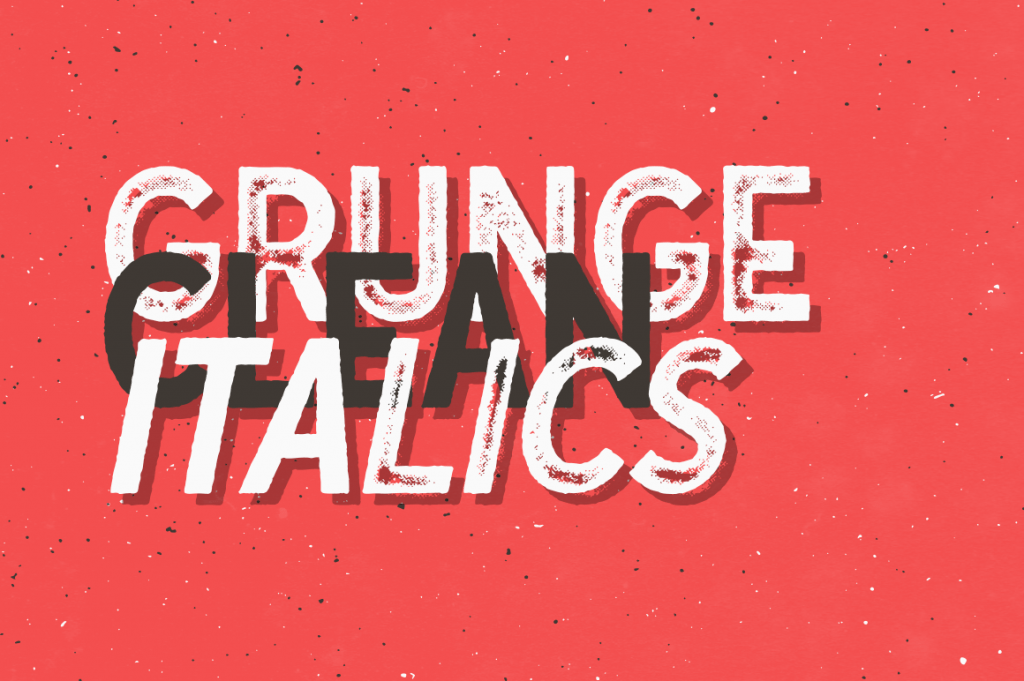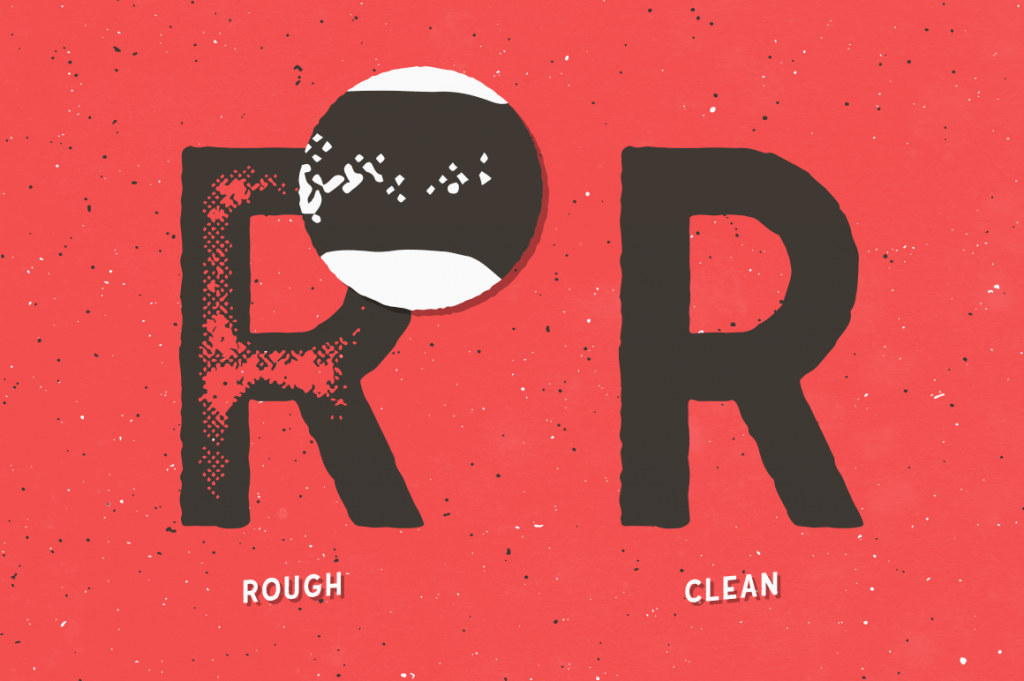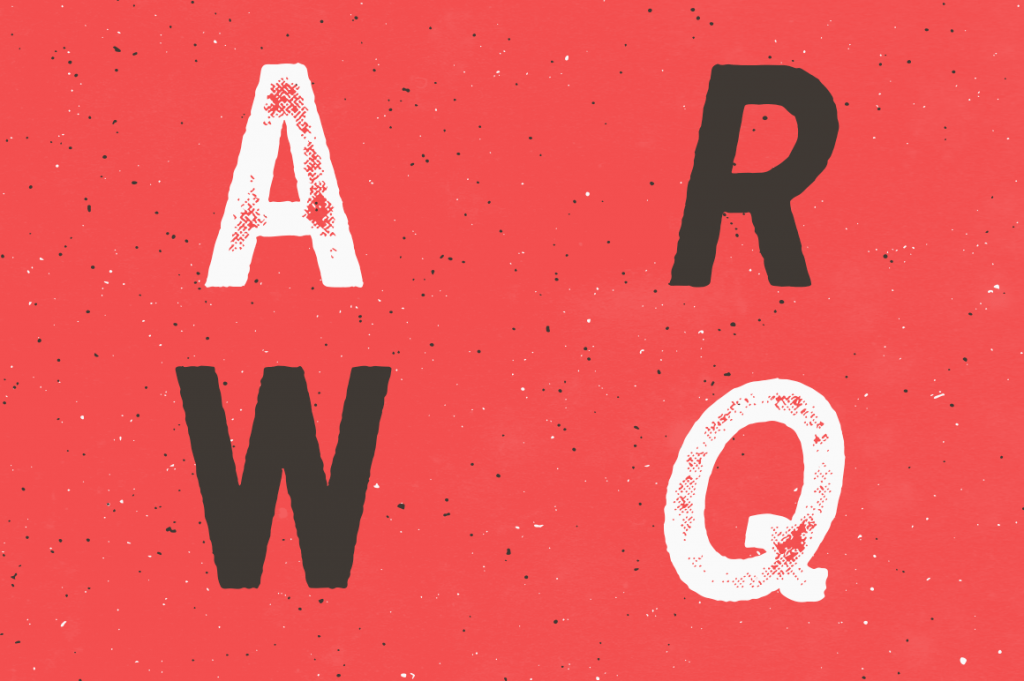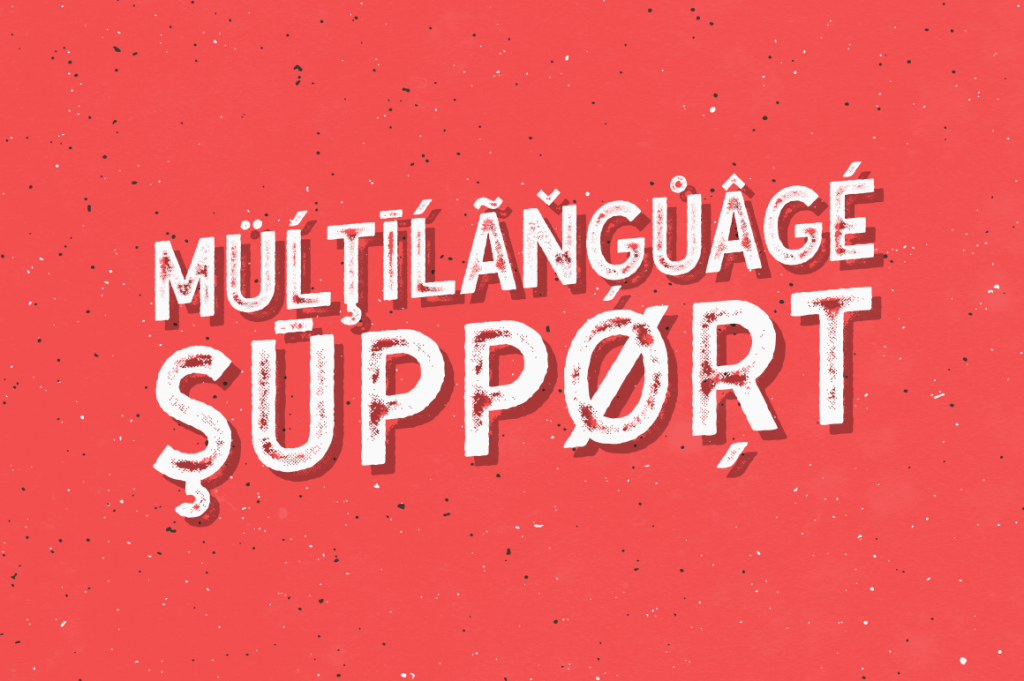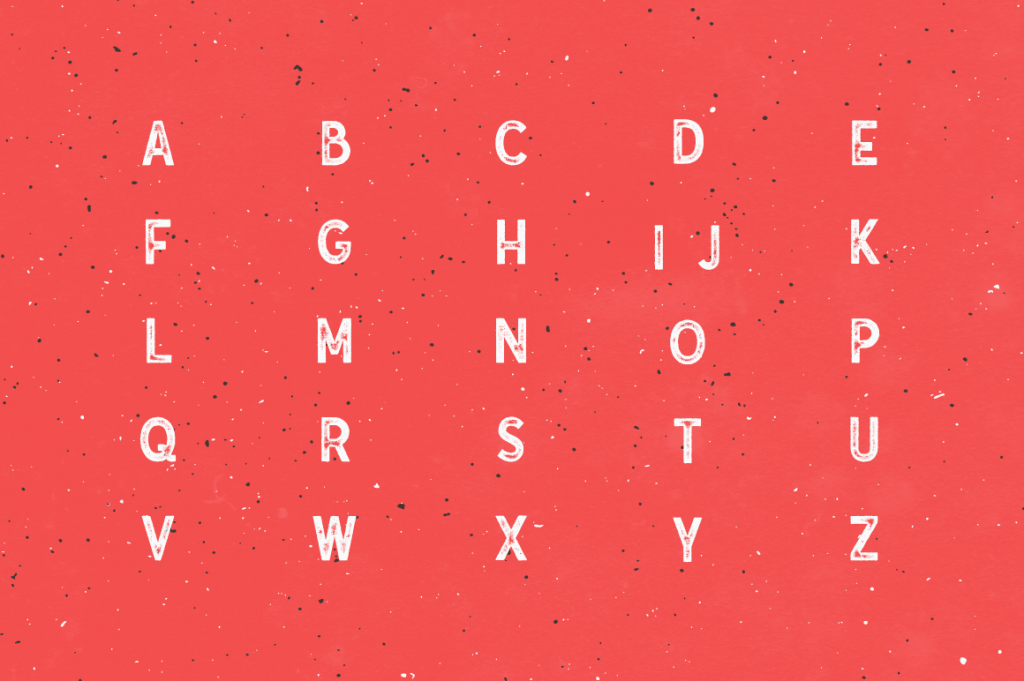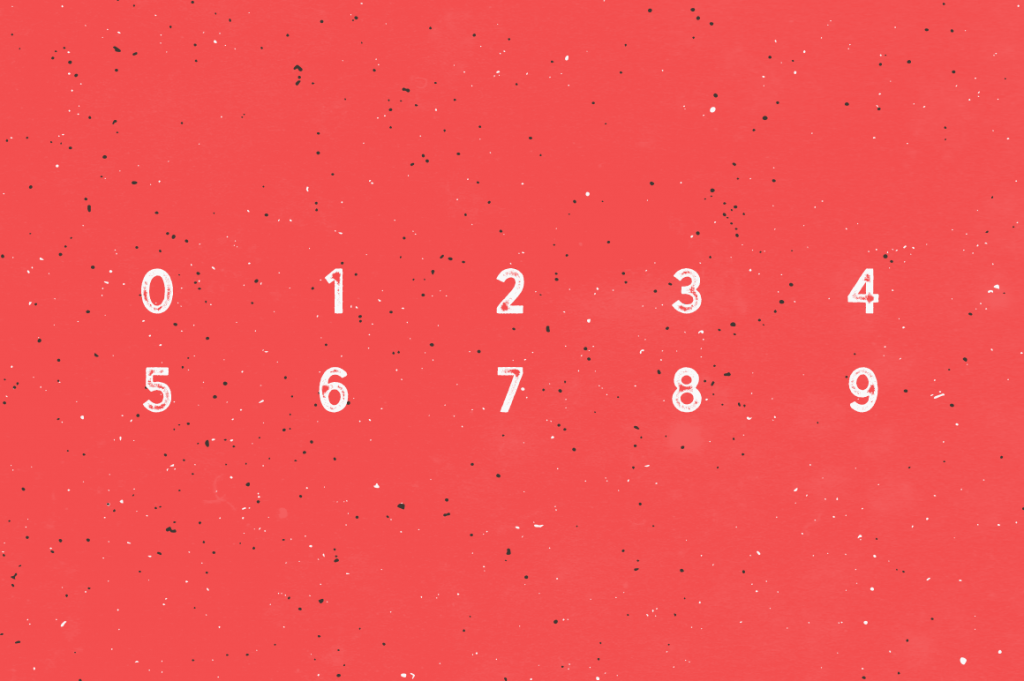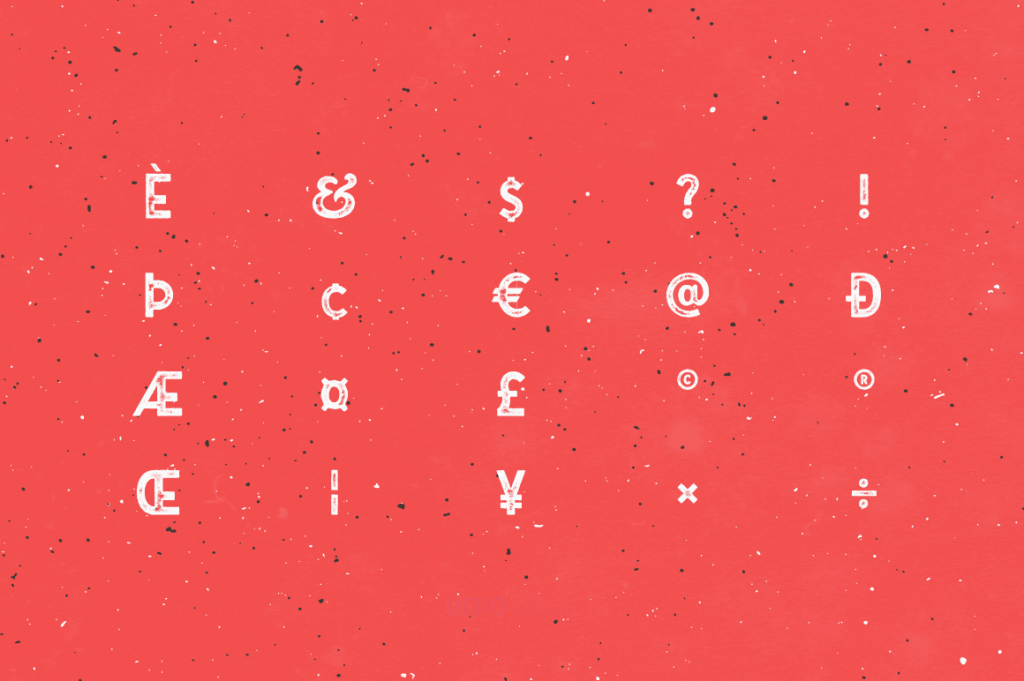
Check out the design tribute to printing introducer Johannes Gutenberg! The reverberation of his noble contribution to the typography history is reflected through this sans serif font.
Sketchy inky edges, 296 glyphs and multi-language support — it’s all about Gutenberg. You have a chance to choose between a rough and clean style, depending on your aims and a desirable effect. It’s inky purposely created imperfections certainly meet any design cravings, like logos, ads, branding ideas, commercials, printouts, web-design projects and presentations. The immense historical heritage in one kit for its modern transformations!